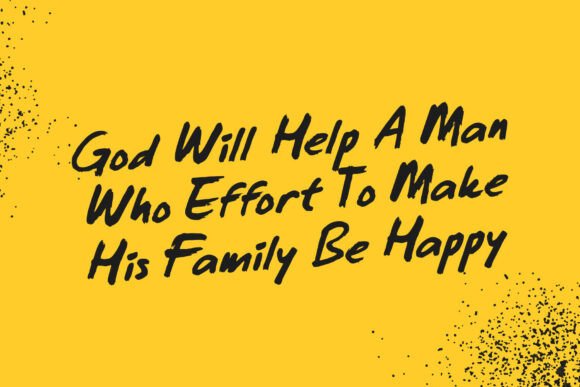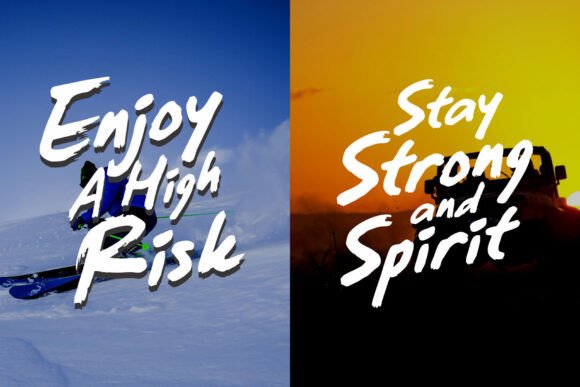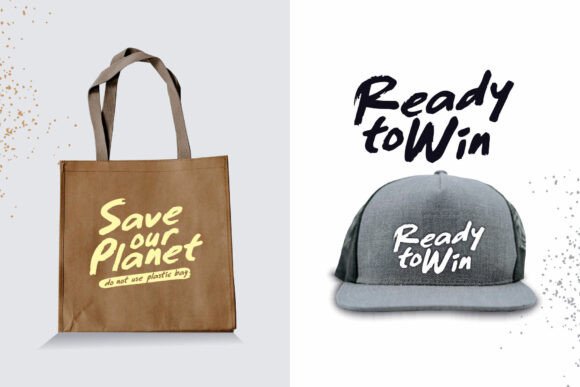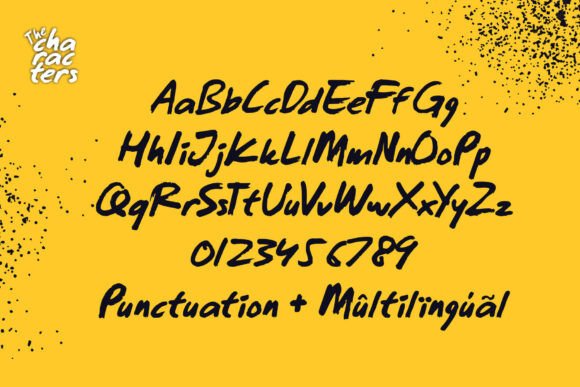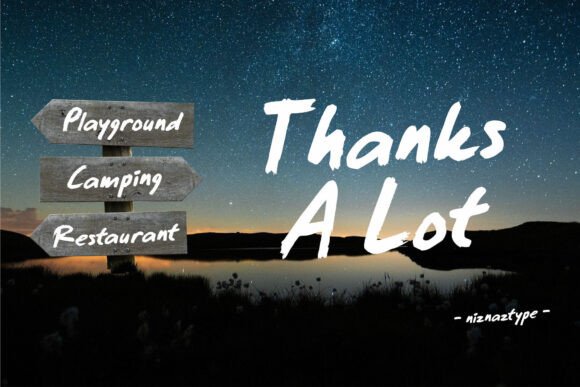
Introduction to Conideo Font
Have you ever stared at a blank page, searching for the perfect font to bring your creative project to life? The frustration is real, but what if I told you that there’s a font that can change the game for you? Welcome to the world of Conideo Font, a masterfully designed handwritten font that’s about to become your new best friend.
Whether you’re a seasoned designer or just starting out, Conideo Font is the perfect addition to your design resource arsenal. With its unique and elegant style, this font is sure to elevate your high-quality designs to the next level. And the best part? It’s available for free download, making it a transparent background for your creativity to shine through.
Key Features of Conideo Font
- Unique, modern font with a transparent background for versatile use
- Size: 1,000+ glyphs, ensuring a comprehensive character set
- Resolution: Optimized for high-resolution displays, suitable for print and digital use
- Perfect for designers seeking a modern, creative font for their next project
Honest Review: Conideo Font
As a designer, I’m always on the lookout for high-quality fonts to elevate my creative projects. The Conideo Font caught my eye with its unique and modern aesthetic. I was excited to try it out and see if it would live up to my expectations.
Here’s what works well: ✨ The Conideo Font has a beautiful, transparent background that makes it perfect for use on images or videos. The font itself is highly customizable, allowing for a range of styles and sizes to suit any project. I also appreciate that it’s a free download, making it an accessible design resource for designers of all levels.
- High-quality design with a modern aesthetic
- Transparent background for versatile use
- Highly customizable for unique styles
However, there are a few limitations: ⚠️ The font may not be suitable for all types of projects, particularly those that require a more classic or traditional look. Additionally, some users may find the font to be a bit too trendy, which could limit its long-term use.
Overall, I’m impressed with the Conideo Font and would recommend it to designers looking for a high-quality, modern font for their creative projects. While it may not be suitable for all projects, it’s a valuable design resource that can help elevate your work.
For optimal results, use Conideo Font on a transparent background to create a clean and modern design. Experiment with different font sizes and colors to add visual interest to your project.
Conideo Font is suitable for a variety of creative projects, including logos, brochures, presentations, and social media graphics. Its high quality and free download make it an excellent design resource for any project.